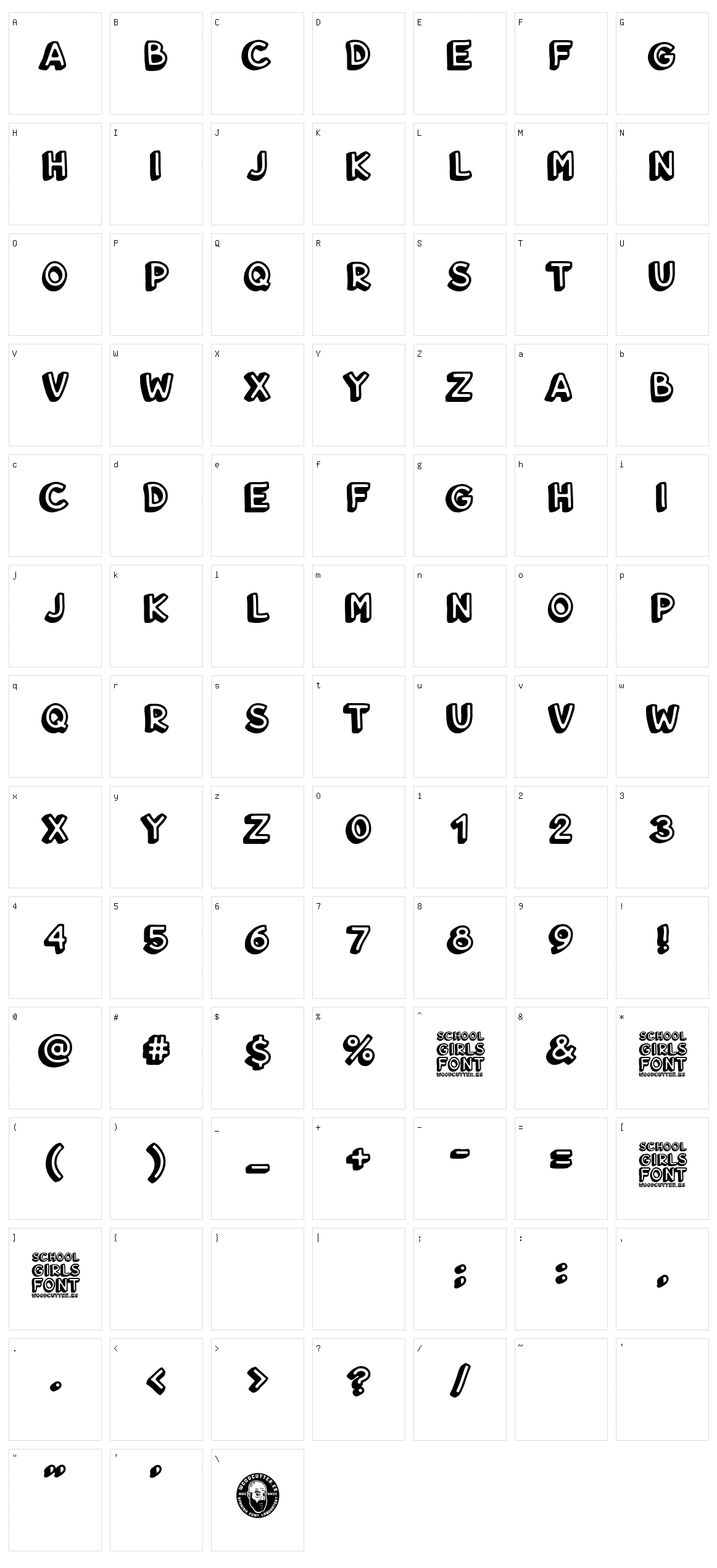
The free font Schoolgirls is carefully designed by Woodcutter, showcasing a thoughtful balance of creativity and usability and falls under the Cartoon font style. When you download the ZIP file, it contains only 99.14 KB of font files, making it lightweight and quick to download. Please review the license details below to understand permitted usage and distribution rights. If license information is not available, we recommend using this font for personal projects only or contacting the author directly for commercial usage permissions.